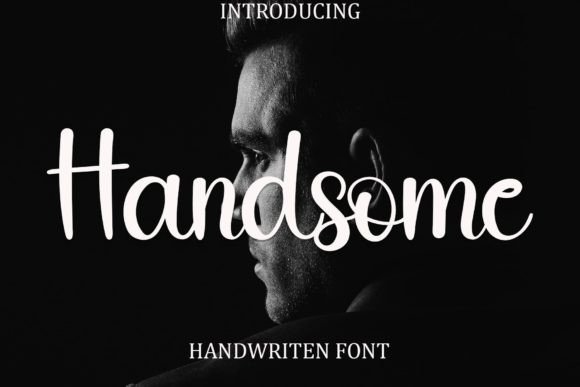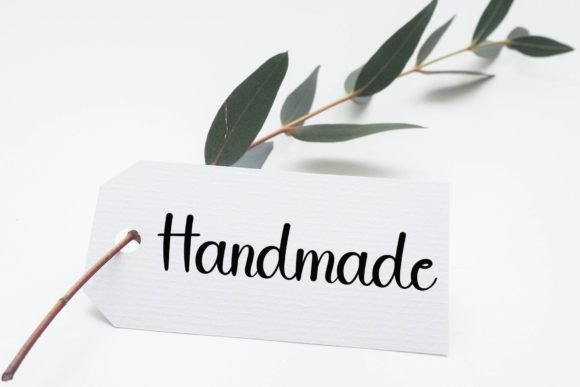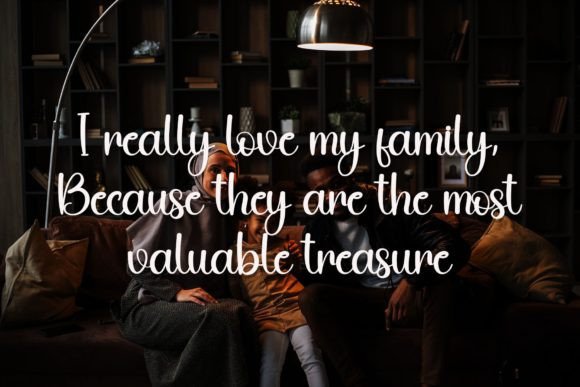
About Handsome Font
Handsome, a sweet and natural handwritten font, exudes a charming and distinctive style that seamlessly blends with a diverse range of designs. Its natural and unique characteristics make it an exceptionally versatile choice, offering a wide array of creative possibilities limited only by your imagination.
The sweet and natural handwritten qualities of Handsome bring an authentic and personal touch to your projects. This font’s versatility allows it to effortlessly transition between different design contexts, enriching the visual appeal of your creations.
What sets Handsome apart is its ability to transcend limitations, acting as a creative tool for your boundless imagination. Whether you’re working on casual and friendly designs or more formal and sophisticated applications, Handsome stands ready to be a flexible and inspiring font.
The charm of a handwritten font like Handsome lies in its capacity to bring authenticity and individuality to your projects. Beyond being merely a font, it becomes a design element imbued with character and personality, ensuring your creations stand out with a natural and effortless beauty.
Explore the creative possibilities with Handsome, and you’ll discover its seamless integration with various design elements. The free-flowing strokes and unique curves add a distinctive touch, capturing attention and infusing your visual communication with creativity.
In essence, Handsome is not just a font; it’s an open invitation to unleash your imagination. Its sweet and natural handwritten style creates a delightful aesthetic that elevates the overall appeal of your designs, turning each project into a unique and expressive work of art. Embrace the freedom that Handsome offers and let your creativity flow limitlessly.